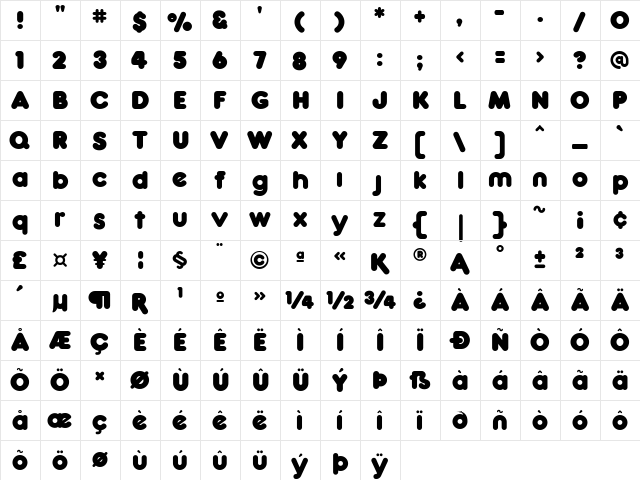
RockoUltraFLF Bold
Design Context for RockoUltraFLF Typeface
RockoUltraFLF takes a measured approach to typography — its balanced proportions and neutral character make it a reliable workhorse for both digital and print work. The heavy weight commands attention and anchors typographic hierarchies.